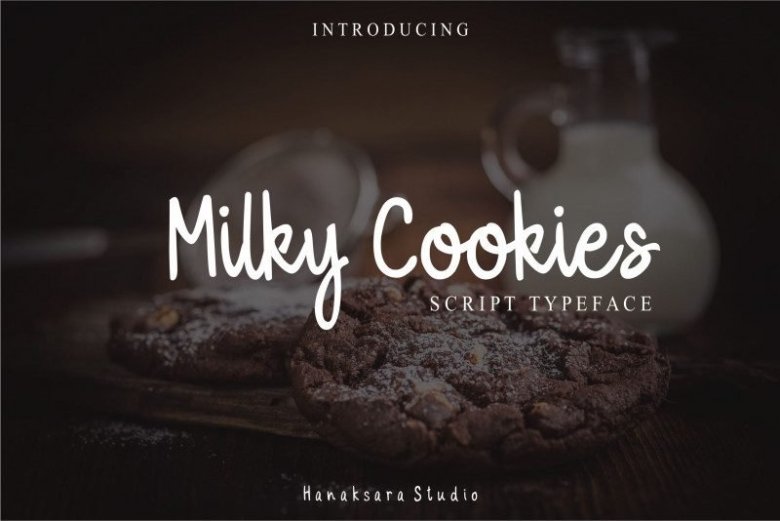
Milky Cookies Typeface
Milky Cookies is Handwritten Font. These font really suitable for logo of cafe, restaurants, food label and its prety cool suitable for book cover design or title of blog.